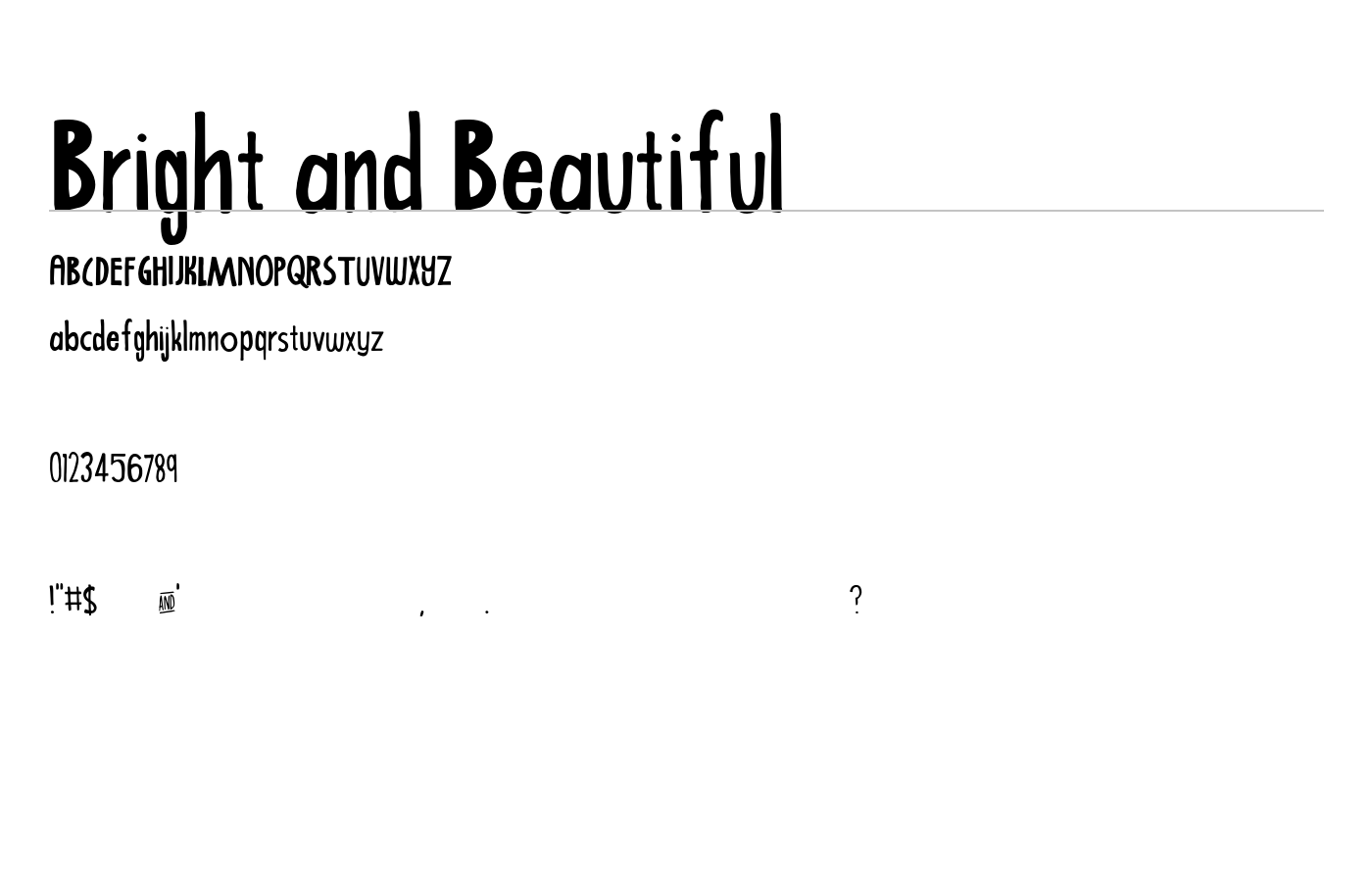
Bright and Beautiful is a playful sans serif font featuring tall, narrow letterforms with a friendly and informal vibe. Its uneven stroke widths and quirky shapes give it a hand-drawn, cheerful personality, making it great for creative, casual, and child-focused designs. This font works well for headlines, logos, and packaging that seek to convey warmth and approachability.
Bright and Beautiful Font
About Bright and Beautiful Font